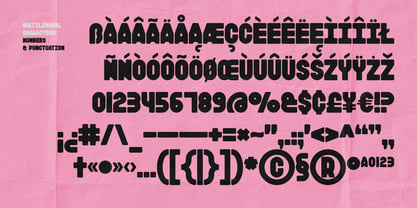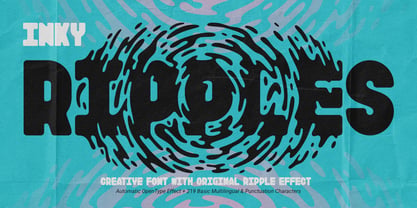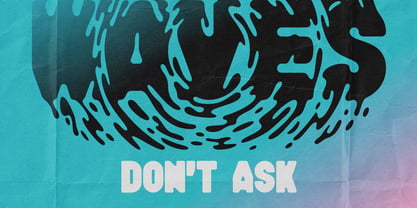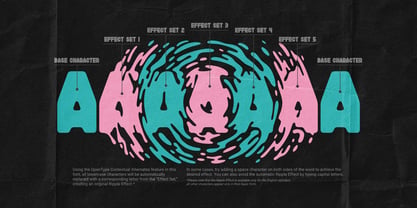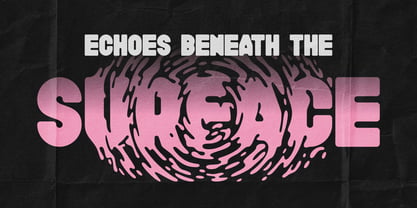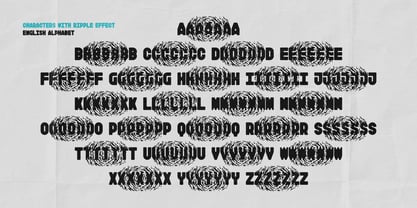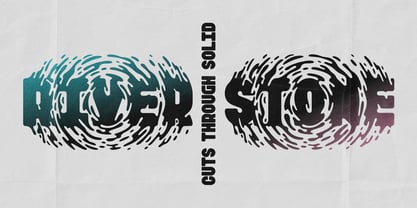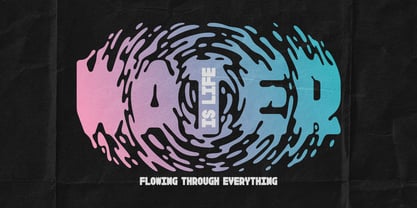
Inky Ripples
by Gleb Guralnyk
The Inky Ripples Font Family was designed by Gleb Guralnyk and published by Gleb Guralnyk. Inky Ripples contains 1 styles. More about this family
Introducing Inky Ripples, a creative font with an original ripple effect. It includes five special characters for each letter of the English alphabet, allowing you to create smooth, seamless lettering. Using the Contextual Alternates feature in this font, all lowercase characters will be automatically replaced with a corresponding letter from the “Effect Set,” creating an original Ripple Effect.* In some cases, try adding a space character on both sides of the word to achieve the desired effect. You can also avoid the automatic Ripple Effect by typing capital letters. *Please note that the Ripple Effect is available only for the English alphabet; all other characters appear only in their basic form.
A lot of my fonts inherits vintage graphic styles but nevertheless I don't like to stick to one theme for a long time. That's why I'm trying to create fonts in different styles and from different eras, from old gothic calligraphic to modern handwritten scripts, from medieval antique to minimalist sans-serif typefaces. It's always interesting to design something new, and expand my skills in novel font design directions.